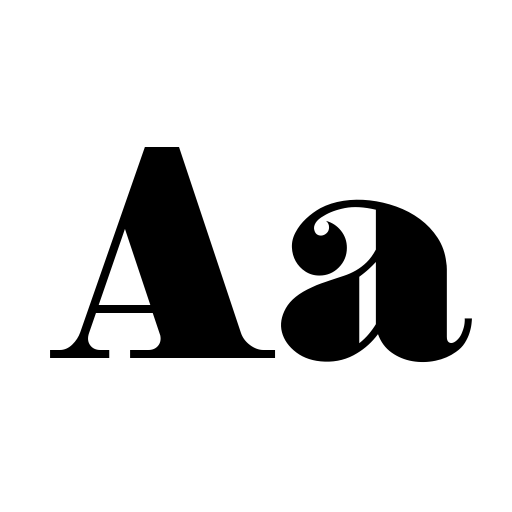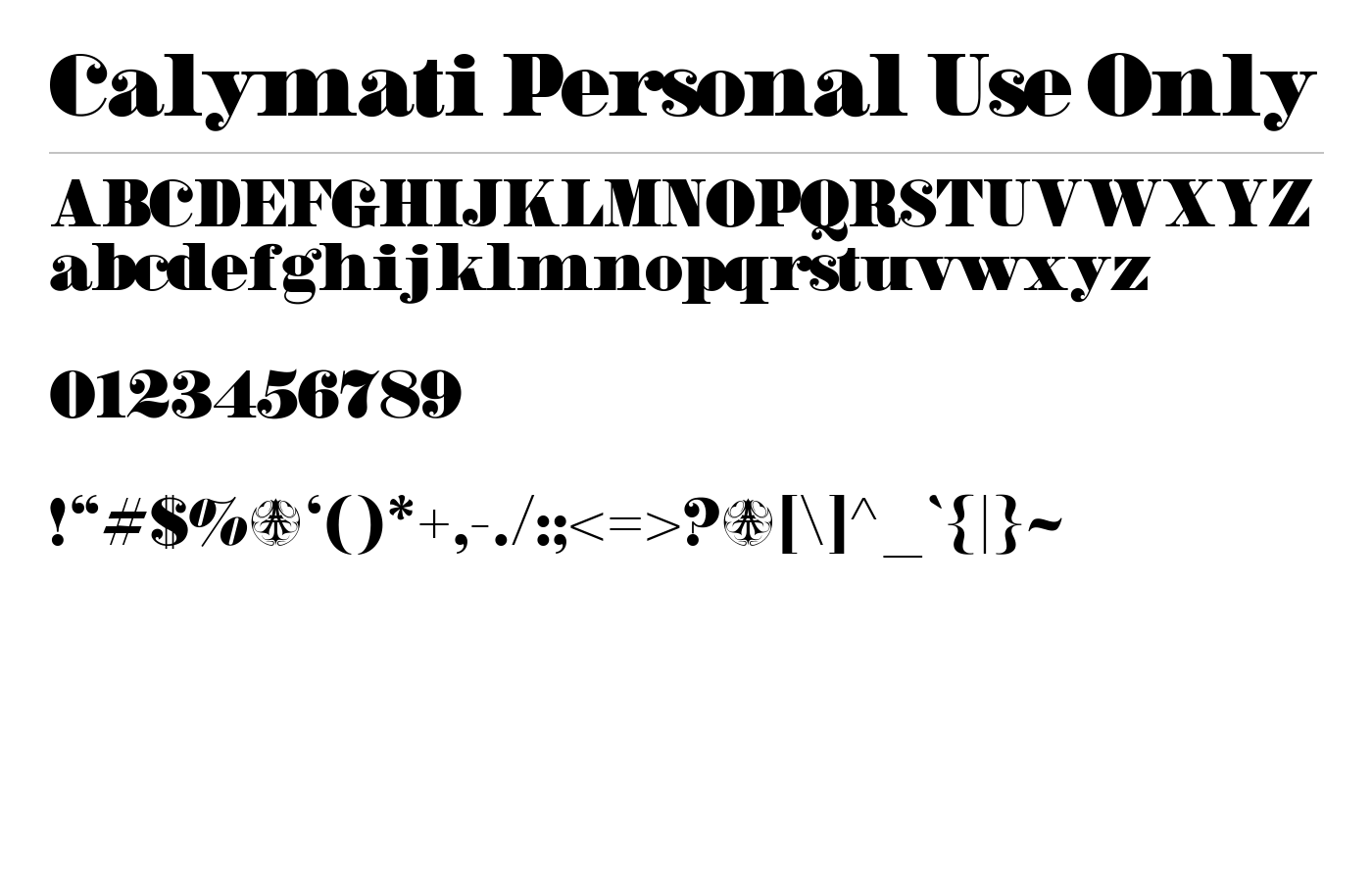
Calymati Personal Use Only is a bold, serif typeface with a strong Didone influence, characterized by high contrast between thick and thin strokes and sharp, bracketed serifs. Its unique ornamental details, such as the stylized curls on terminals and distinctive ampersand, give it a sophisticated yet playful personality, making it ideal for striking headlines, fashion branding, and editorial design where elegance and impact are key. This font is best used in large sizes to showcase its decorative features and deliver a memorable, luxurious visual impression.
Calymati Personal Use Only Font
About Calymati Personal Use Only Font